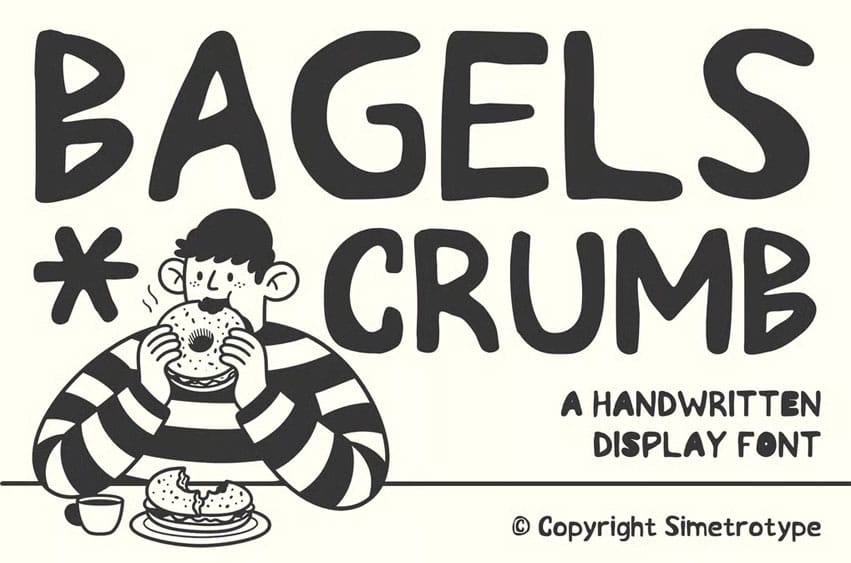
Bagels Crumb Font is a playful handwritten display font that brings warmth and personality to your design. With its organic curves and imperfect charm, this typeface feels friendly and approachable, just like your favorite morning coffee and bagel. Perfect for branding, packaging, cafe menus, social media posts, or any project that needs a touch of coziness and handmade character. Enjoy the sweet taste of creativity with Bagels & Crumb, a font that’s bold, delicious, and full of flavor.